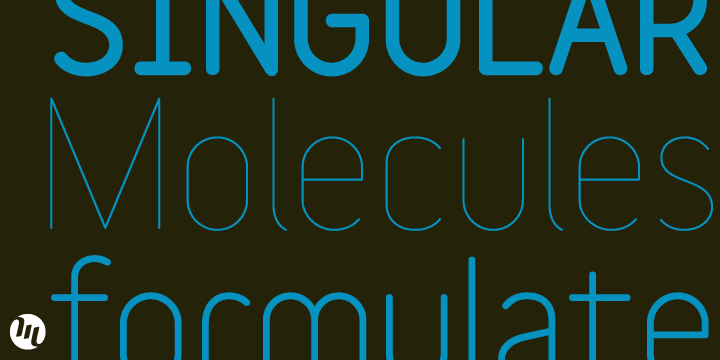
Variable
Variable is an archetypal sans-serif monoline typeface family. It can be used in a variety of typographic environments. Since this is an UltraThin weight font, it is ideal for use at large sizes in magazines. It can also add the much coveted hairline effect wherever required.
Variable font
The Black weight of variable evokes a unique feel reminiscent of wooden router lettering. The soothing curves of variable make it a very versatile typeface. It can be used in print or on-screen environments.